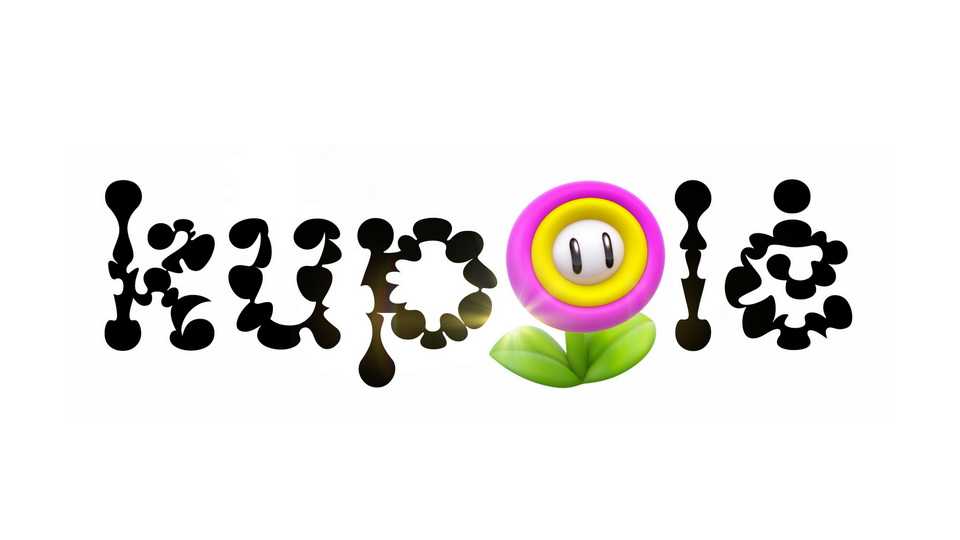
Download Kupolė font, a unique display typeface inspired by the spirit of springtime vegetation and flowers bringing people health, happiness, protecting against all evils.